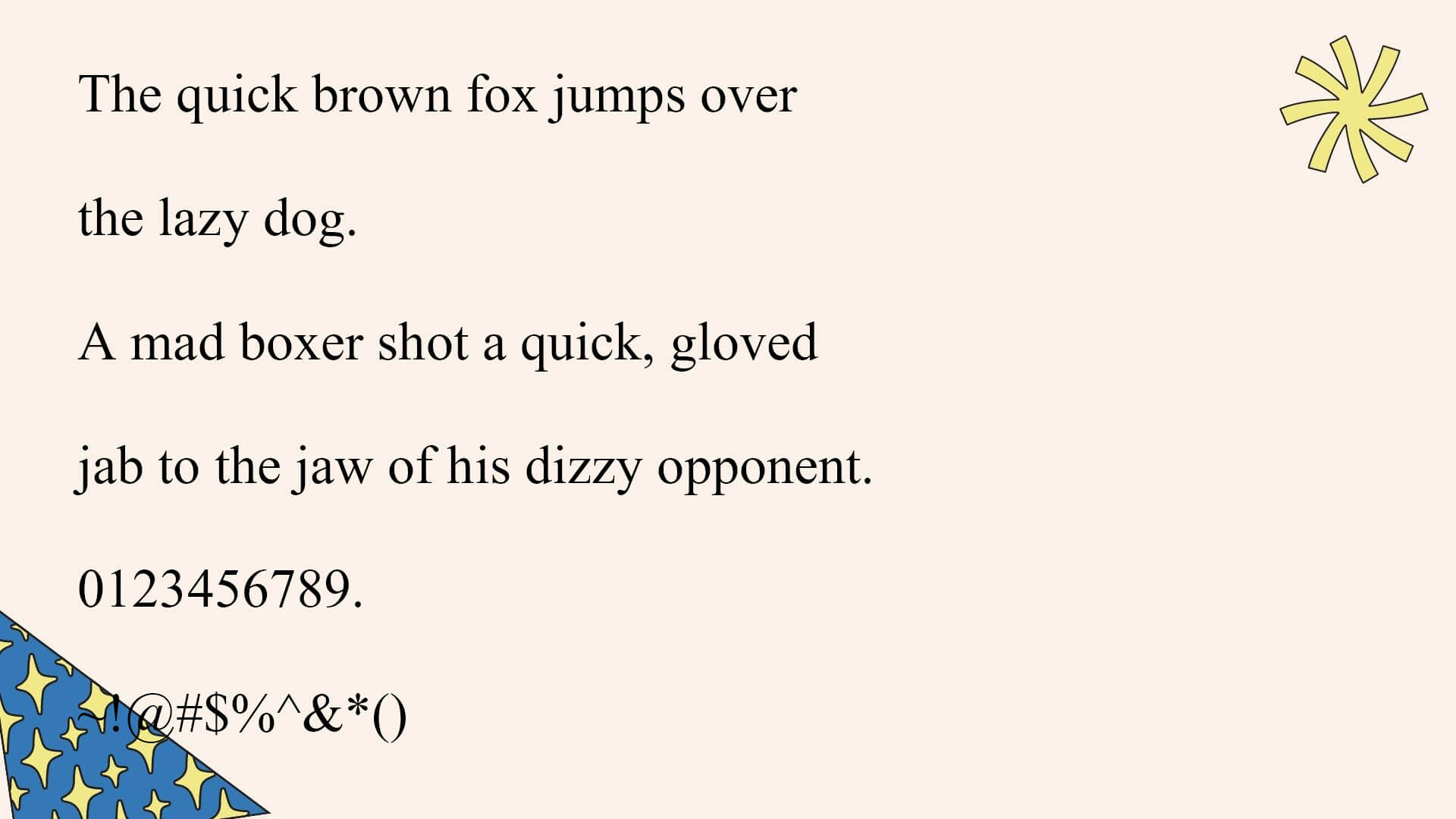
Today we are introducing you to another exciting font called Kokila font. Modular Infotech a type foundry designed this simple typeface. This font is a serif typeface. This font is best suited when there is the Hindi language is used. So it can be the best font to use in that situation.
It contains many styles and glyphs, making this font compatible with many design projects. The textured design of this font is very regular and basic. Characters of this font have a variety of widths in their design.
Name | Kokila Font |
Designer | Modular Infotech |
Type | Serif |